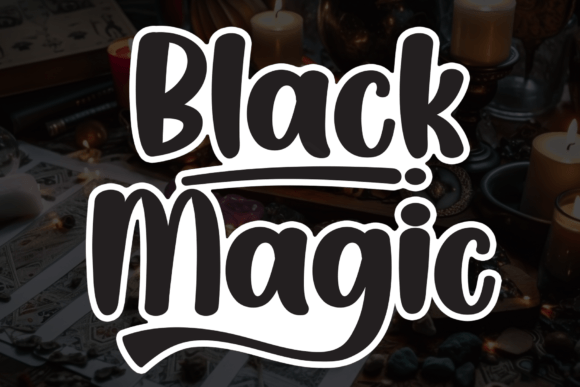
Journey into the captivating world of Black Magic, a script font designed to unleash the wild spirit in your creations. With its undeniable charm and unique personality, this font will cast a spell on your designs, leaving a lasting impression that's both bold and playful. Dive into the depths of creativity, where the untamed beauty of Black Magic awaits to transform your projects into extraordinary works of art, captivating the hearts and minds of all who lay their eyes upon it.
Indulge in the limitless possibilities that Black Magic presents, whether you seek to make a bold statement or add a touch of whimsical playfulness to your designs. From breathtaking logos that command attention to alluring social media posts that ignite engagement, this font is your magic wand, ready to weave its enchanting aura into every corner of your creative ventures. Let the untamed spirit of Black Magic guide your designs, igniting imaginations and leaving a trail of enchantment wherever your creations venture.
Unleash the raw power of creativity with Black Magic, a font that defies convention and beckons you to embrace the extraordinary. Its bold presence will leave an imprint on any project, captivating your audience with a touch of elegance and captivating allure. Experience the magic of Black Magic today and elevate your designs to new heights of creativity, leaving a lasting legacy of enchantment and wonder.